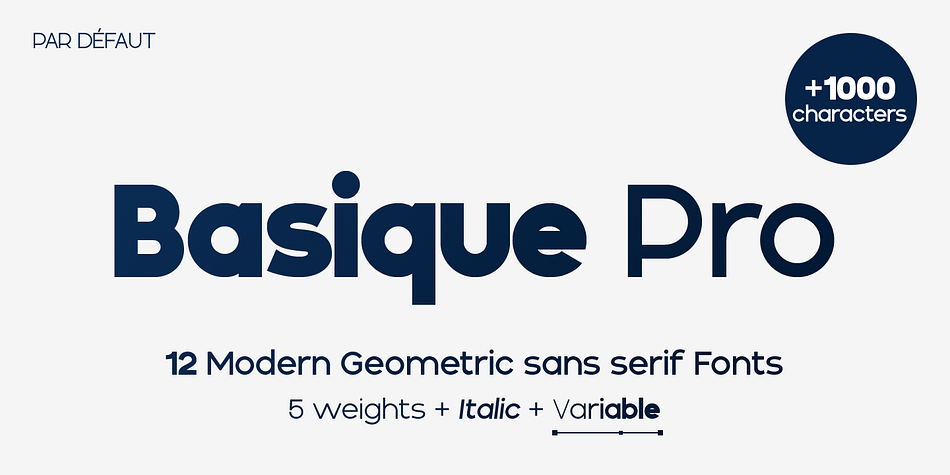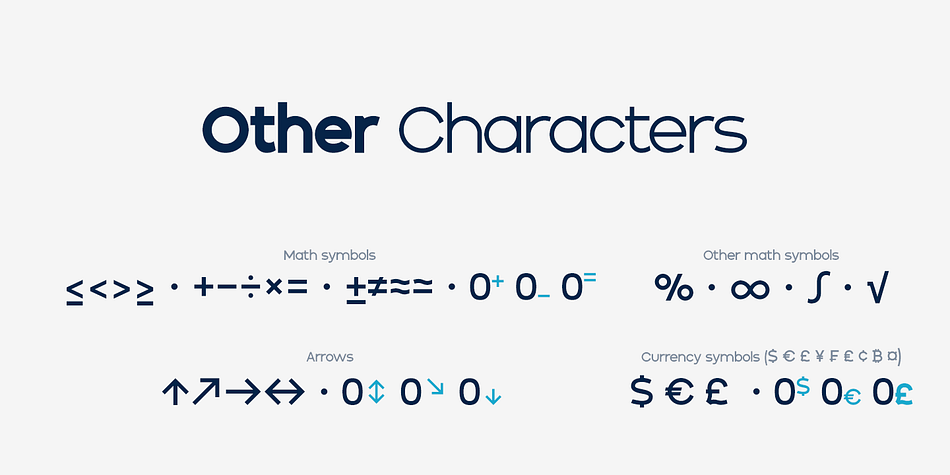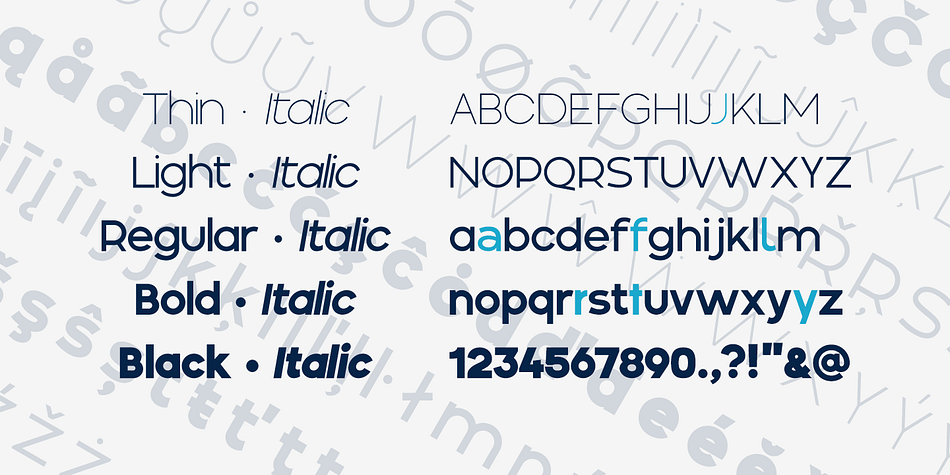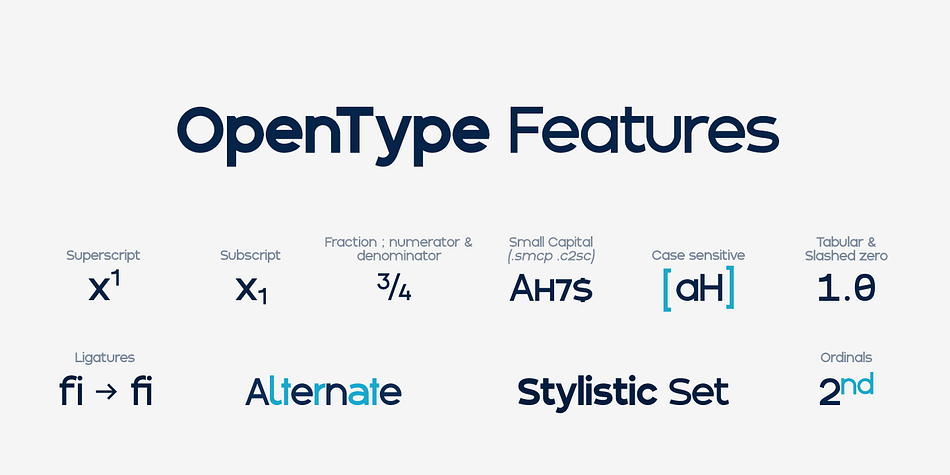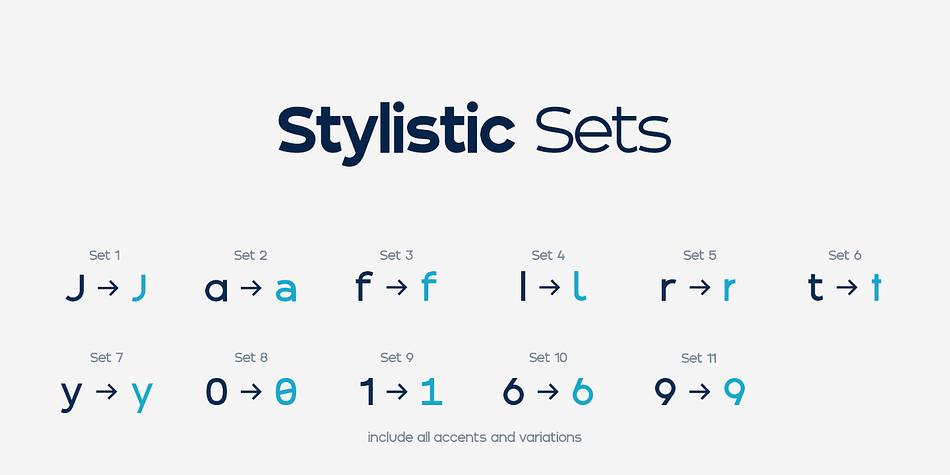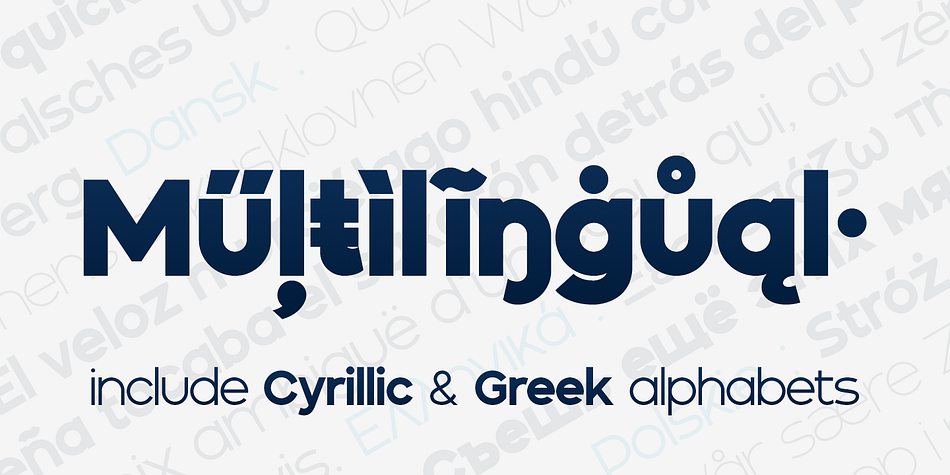
Basique Pro
Basique Pro is a sans serif font family. This typeface has twelve styles and was published by Par Défaut.
Basique Pro is a modern, geometric sans serif font family.
It contains more than 1000 characters including the Latin, Cyrillic and Greek alphabet.
There are also 14 OpenType features (Superior; Inferior; Numerator; Denominator; Fraction; Tabular Lining; Slashed Zero; Small Capital; Small Capitals from Capitals; Standard Ligature; Case Sensitive; Ordinals; Access All Alternates; Stylistic Set)